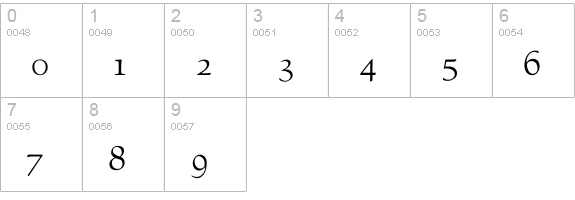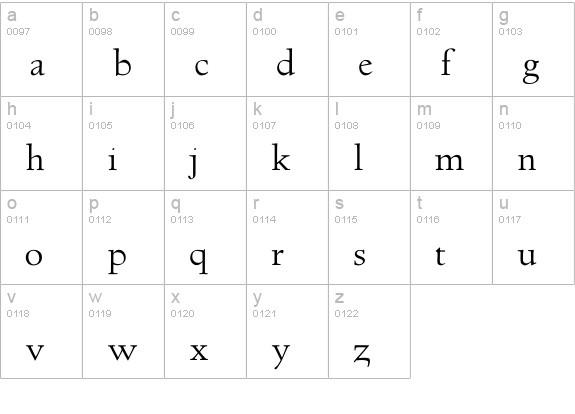
GoudyVillageH Font Details
GoudyVillageH is a classic yet modern serif font that exudes elegance and sophistication. With its timeless appeal and intricate details, this font is perfect for adding a touch of refinement to any design project. The unique letterforms and graceful curves of GoudyVillageH make it a standout choice for branding, editorial design, and more. And the best part? GoudyVillageH is available for free download at FontsMarket.com. Whether you're a seasoned designer looking to expand your font library or a newcomer in need of a versatile typeface, GoudyVillageH is a must-have addition to your collection. Don't miss out on the opportunity to elevate your designs with this exquisite font, now easily accessible and free to use for all your creative endeavors.